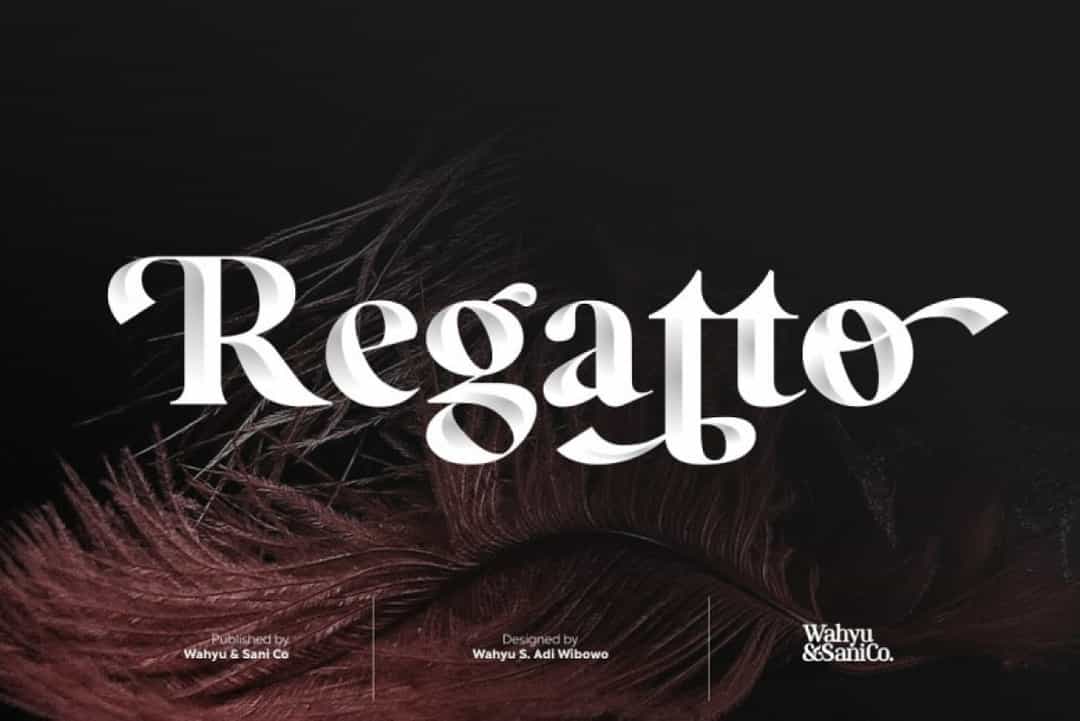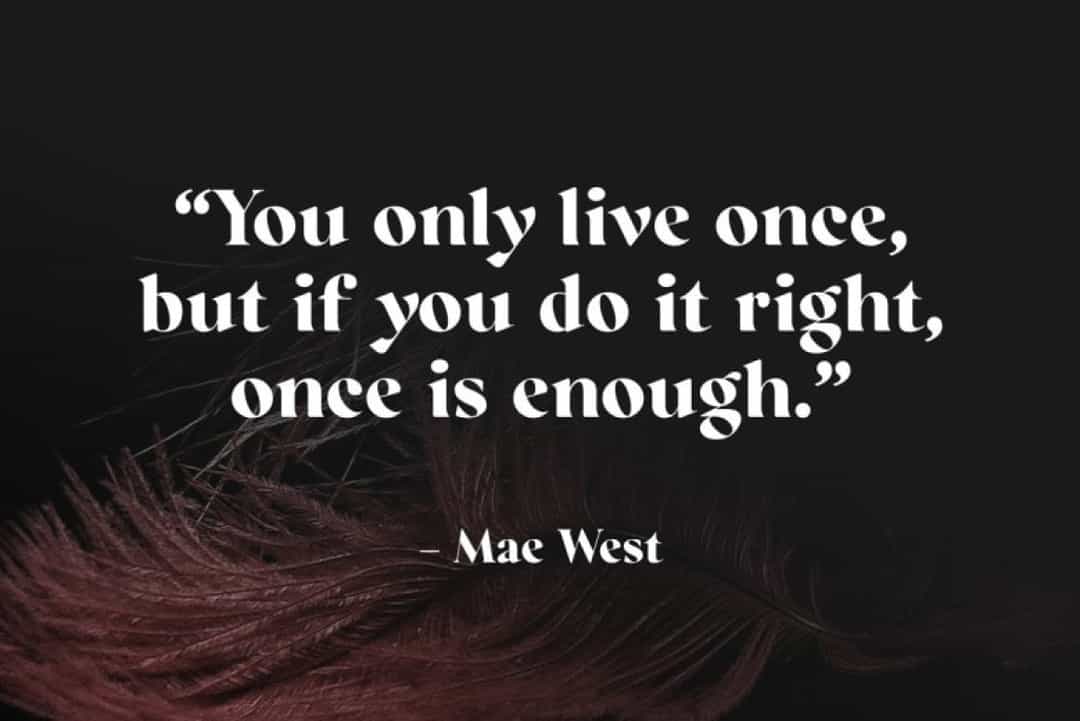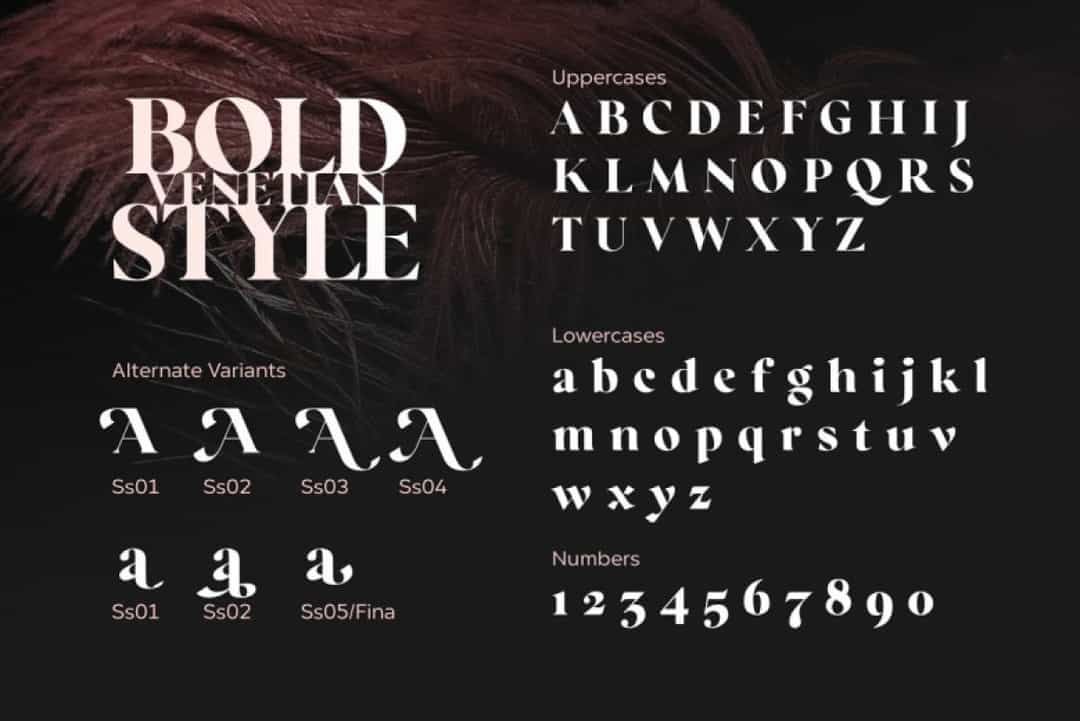
This font was designed with the inspiration of the elegance of Venetian style typeface but having high contrast and bold looks for that dramatic appeal. This font includes several ligatures and alternate fonts with different applications such as for headlines, posters, etc., and also includes diacritics accents for other languages. Font is not in small caps; some of the text in these images was made by changing size of initial letters.